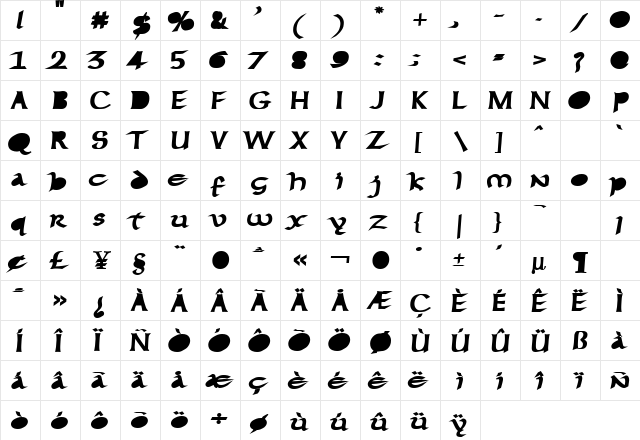
ForgottenUncialMapA Regular
Design Context for ForgottenUncialMapA Typeface
ForgottenUncialMapA is a composed and adaptable typeface that performs quietly and consistently across a wide range of design contexts.